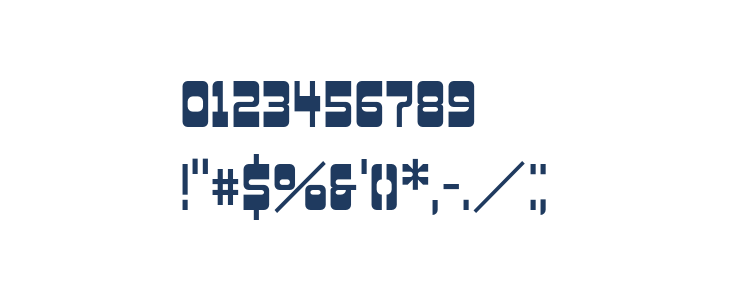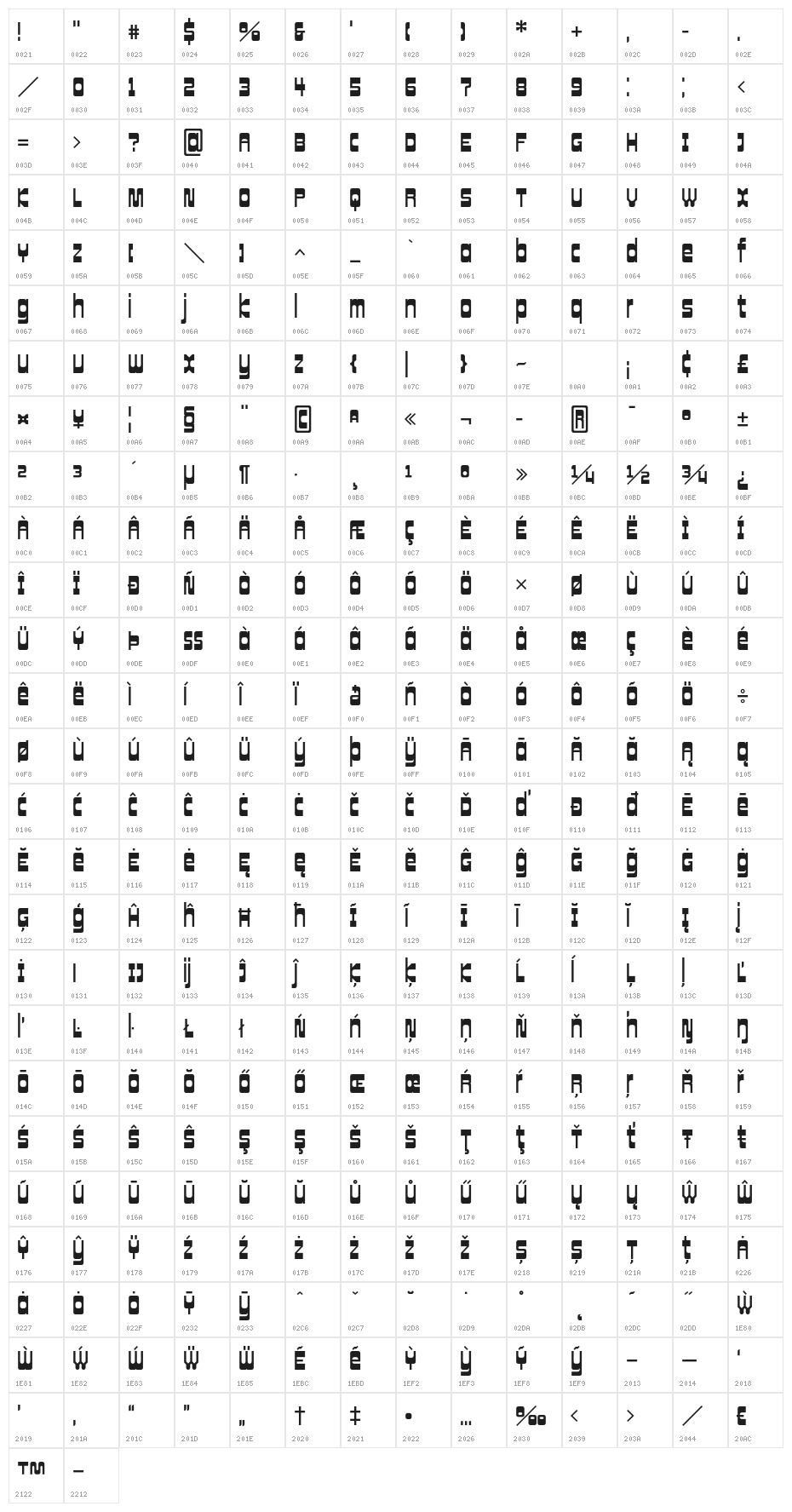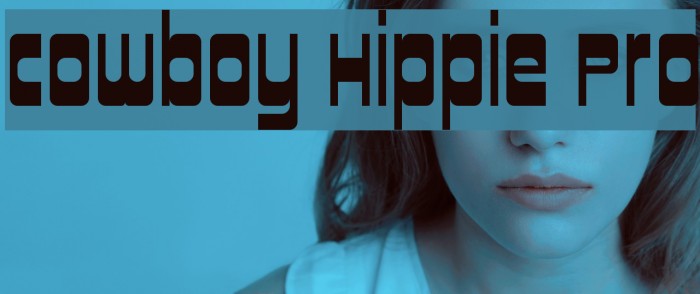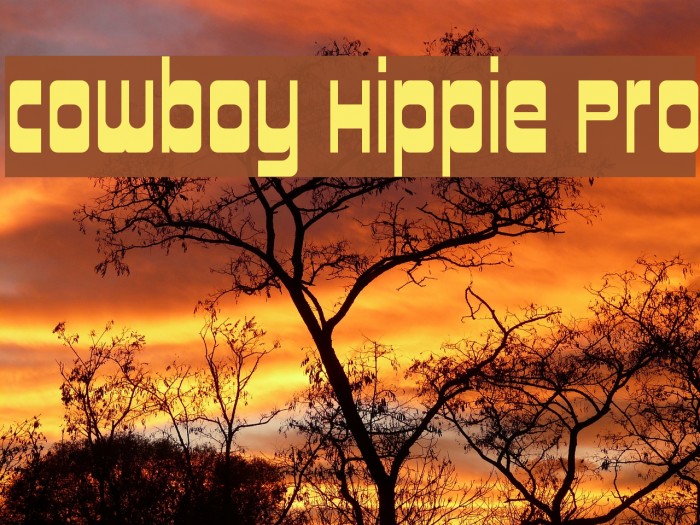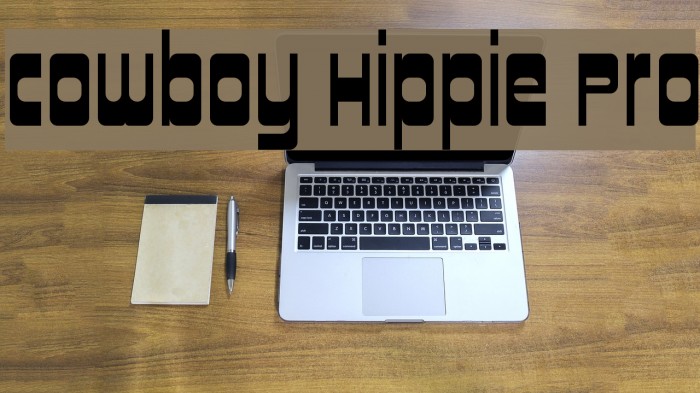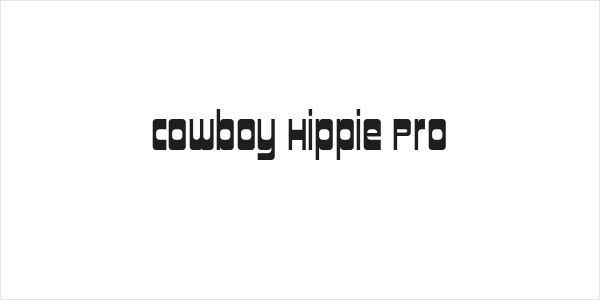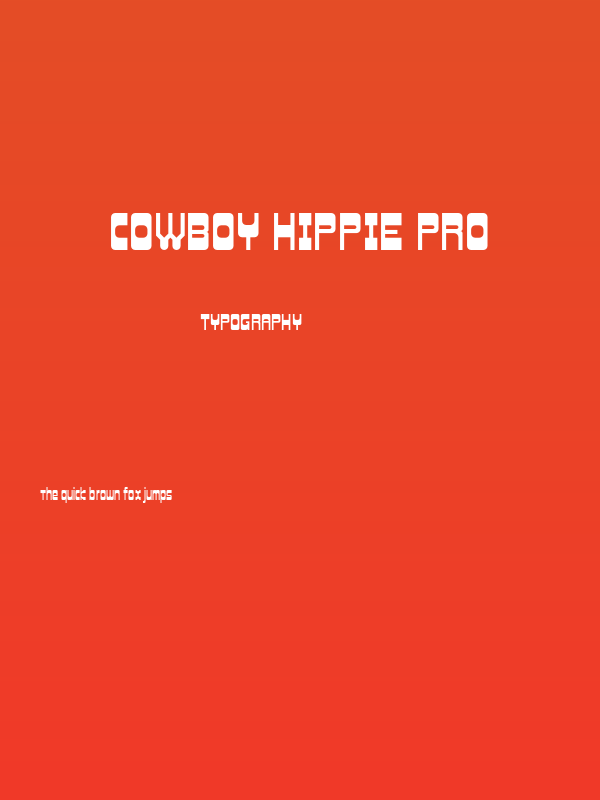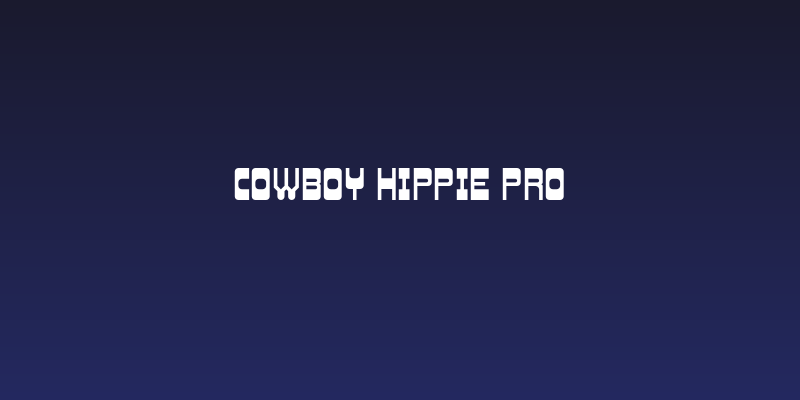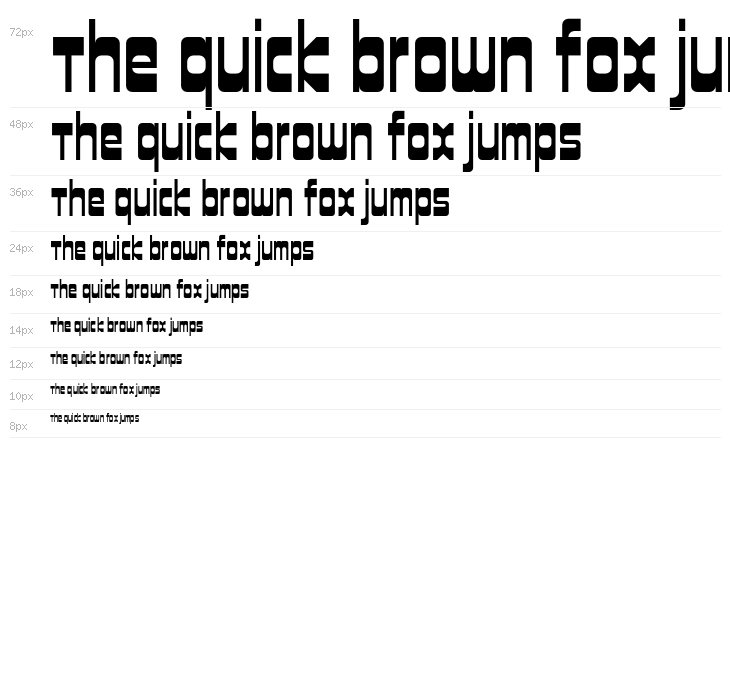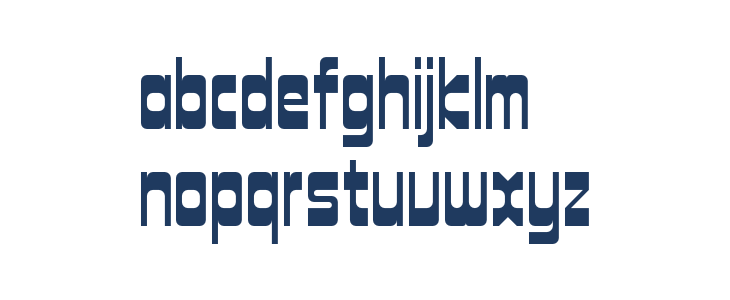
Cowboy Hippie Pro Font
Cowboy Hippie Pro Description
This font features a bold and striking design with a distinctly modern and geometric aesthetic. The characters are blocky and robust, with a consistent thickness throughout, giving it a strong presence. The uppercase and lowercase letters maintain a uniform style, with subtle variations that add a unique flair. The numerals and special characters are equally bold, ensuring readability and impact. The font's design is reminiscent of retro and industrial styles, making it suitable for projects that require a bold statement. Its clean lines and solid structure make it versatile for various design applications.
| Overall Style | Modern, Retro, Industrial |
| Proposed Projects | Ideal for branding, posters, headlines, and any design requiring a strong, impactful typeface. |